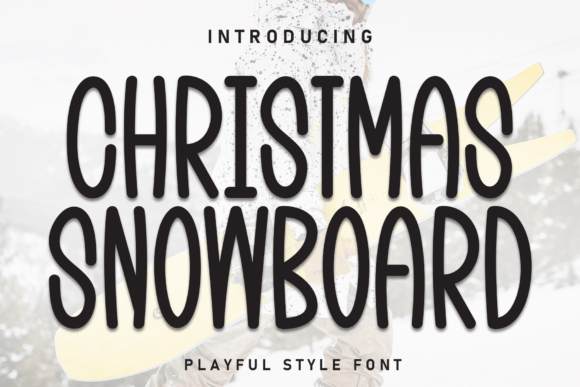
Introduction to Christmas Snowboard Font
Christmas Snowboard is a casual handwritten font that captures a relaxed and friendly vibe with its natural, flowing strokes.
Ideal for personal projects, social media, and invitations, it brings an effortless, charming touch to any design The font’s easygoing style adds warmth and authenticity.